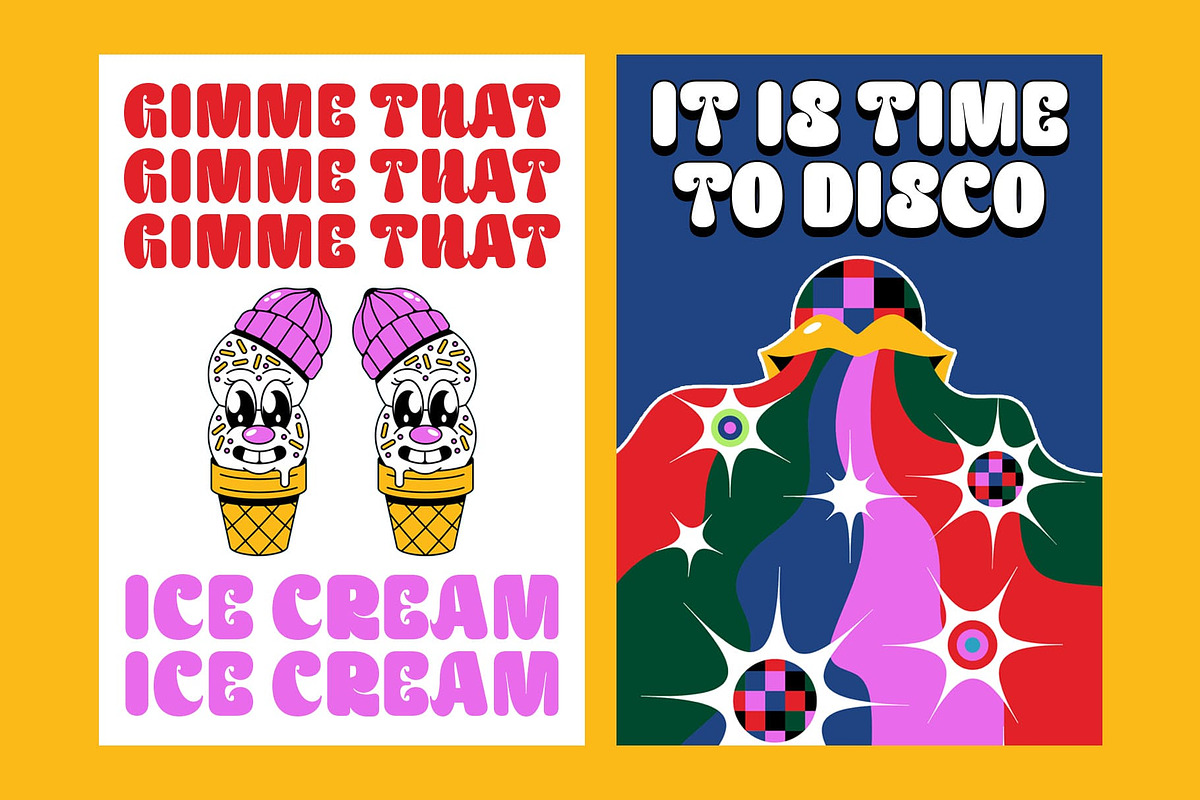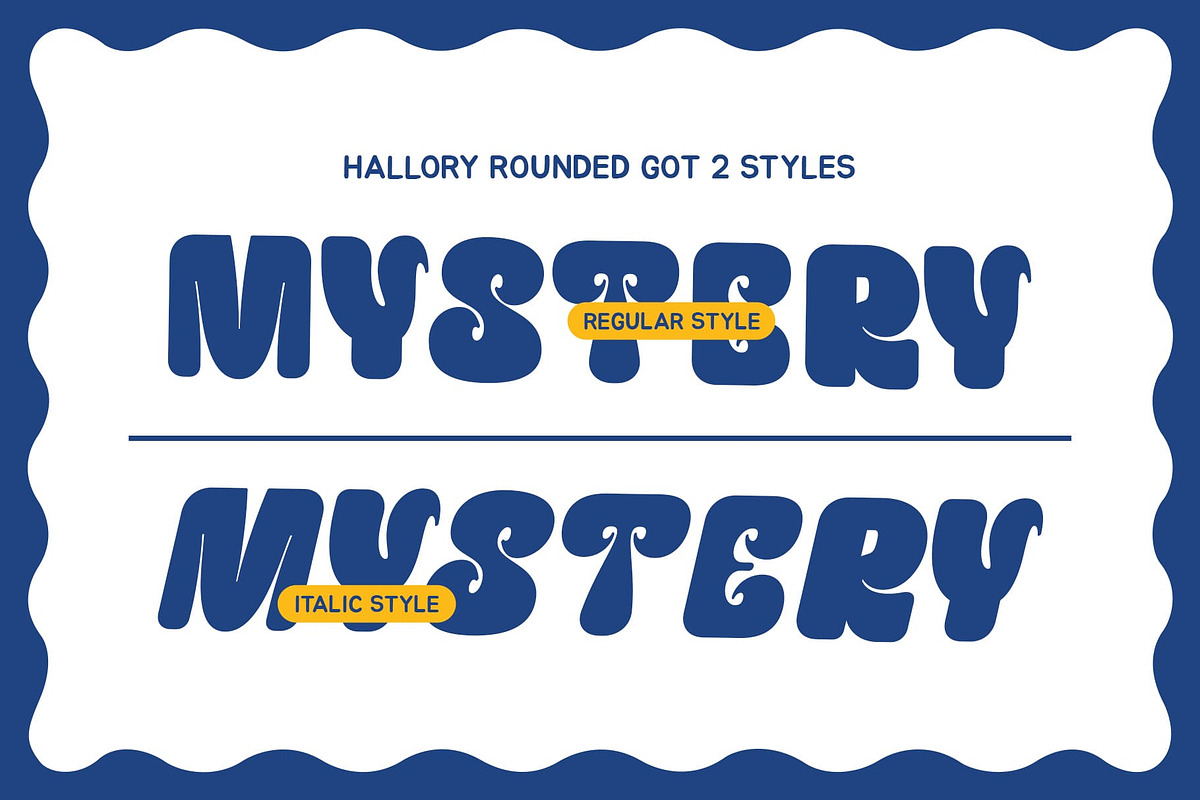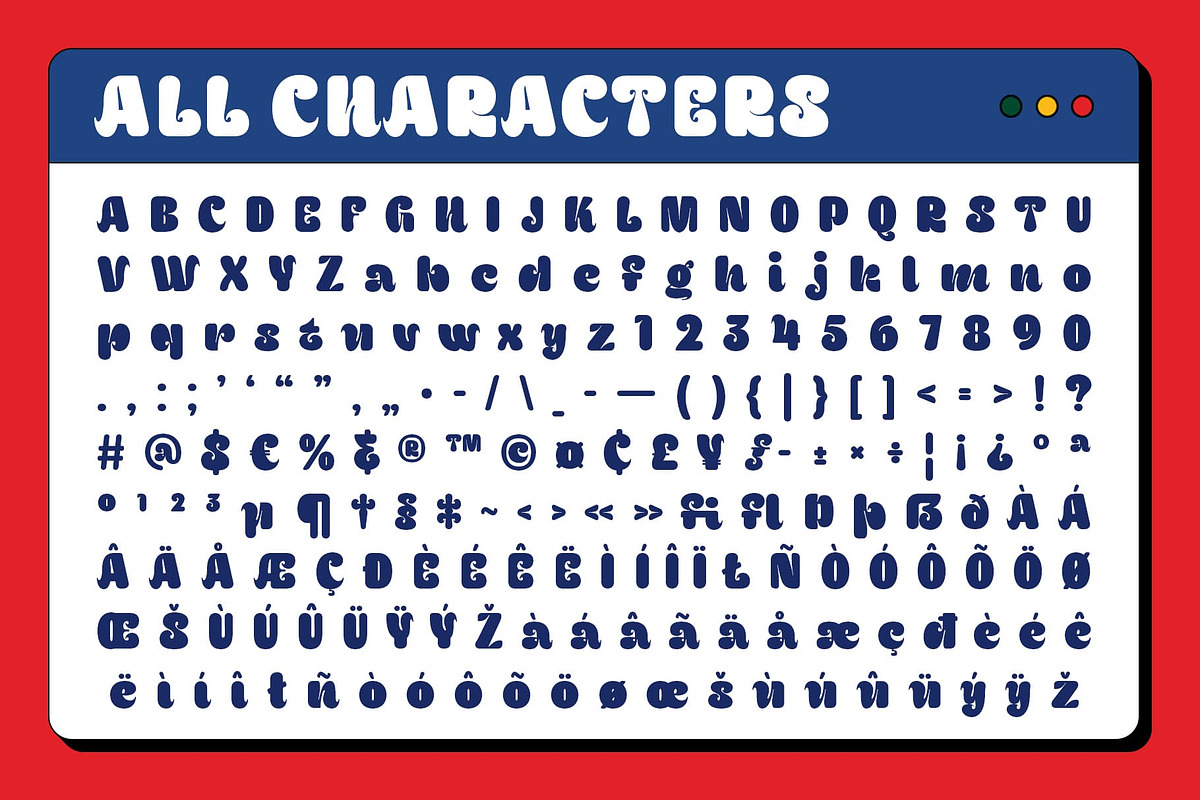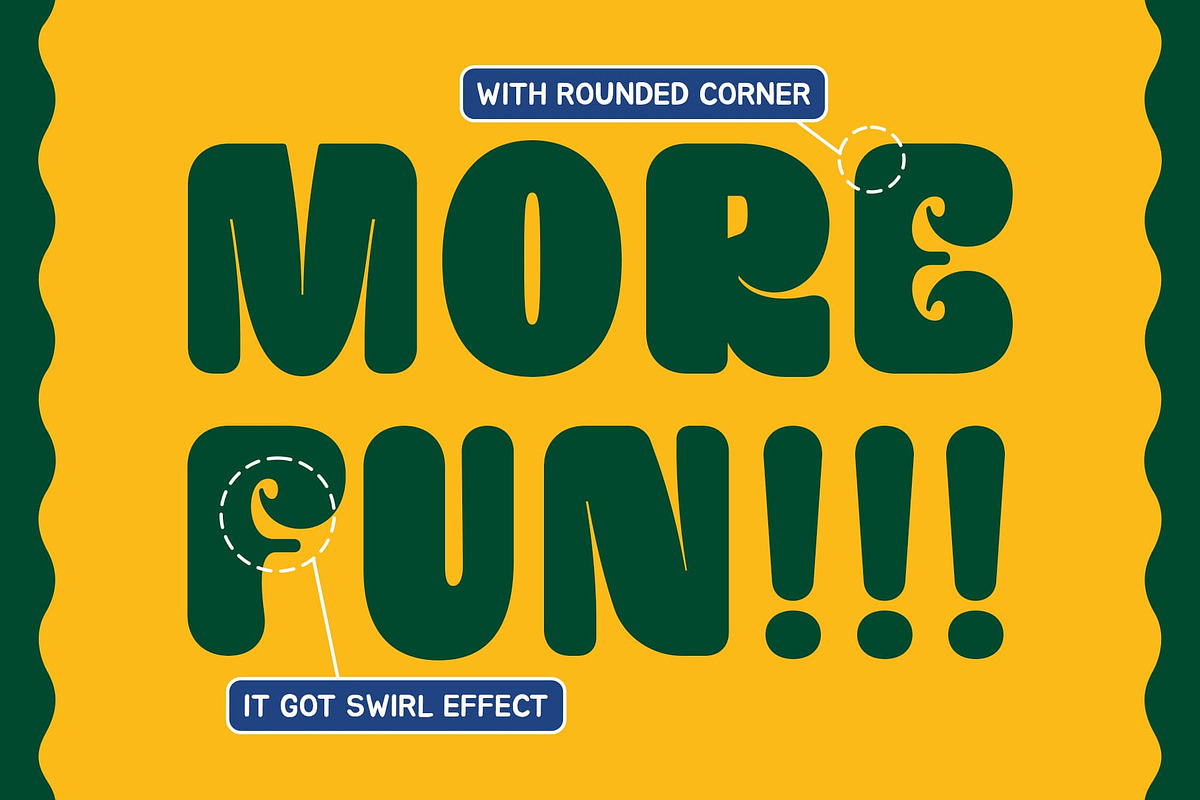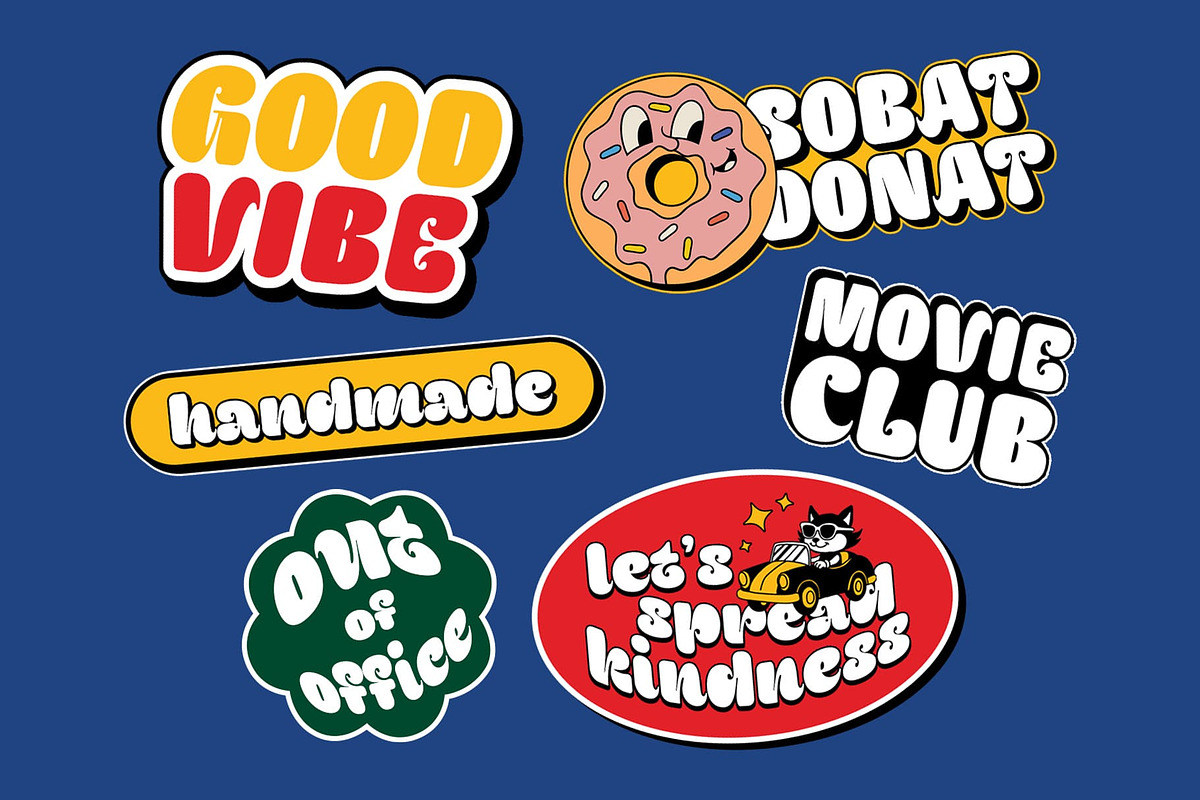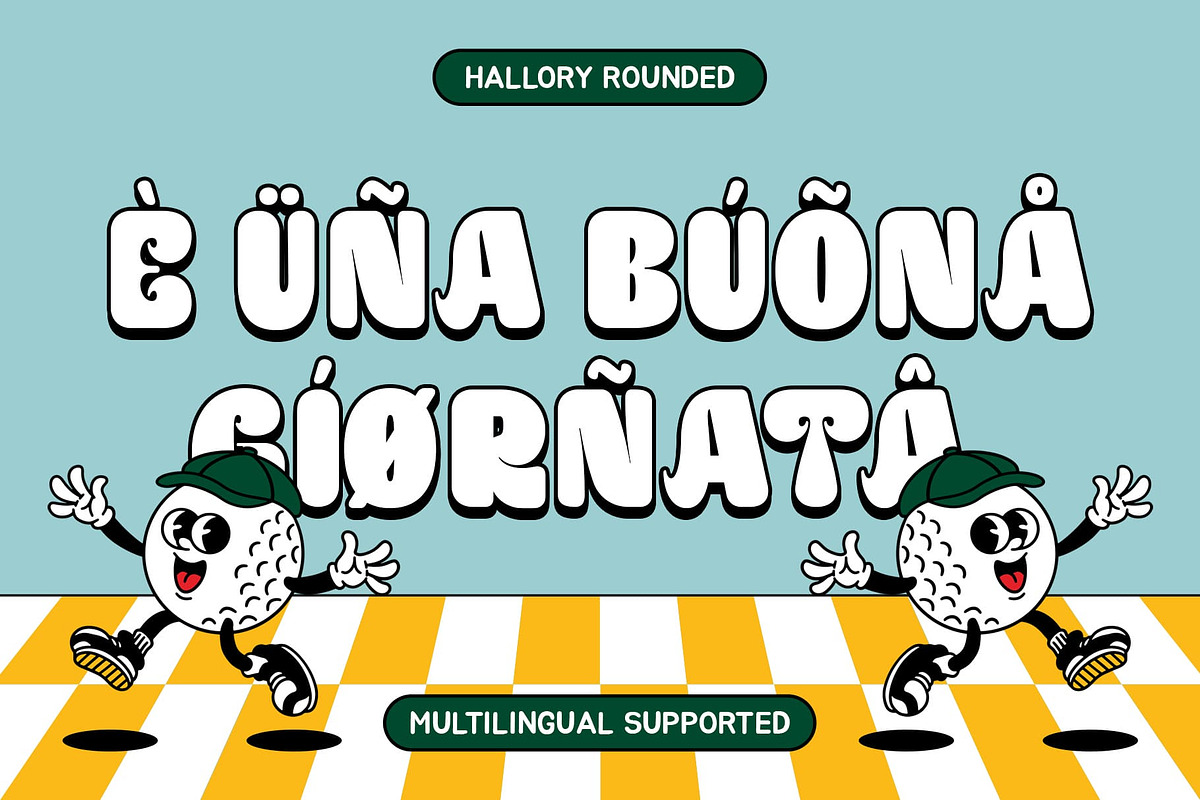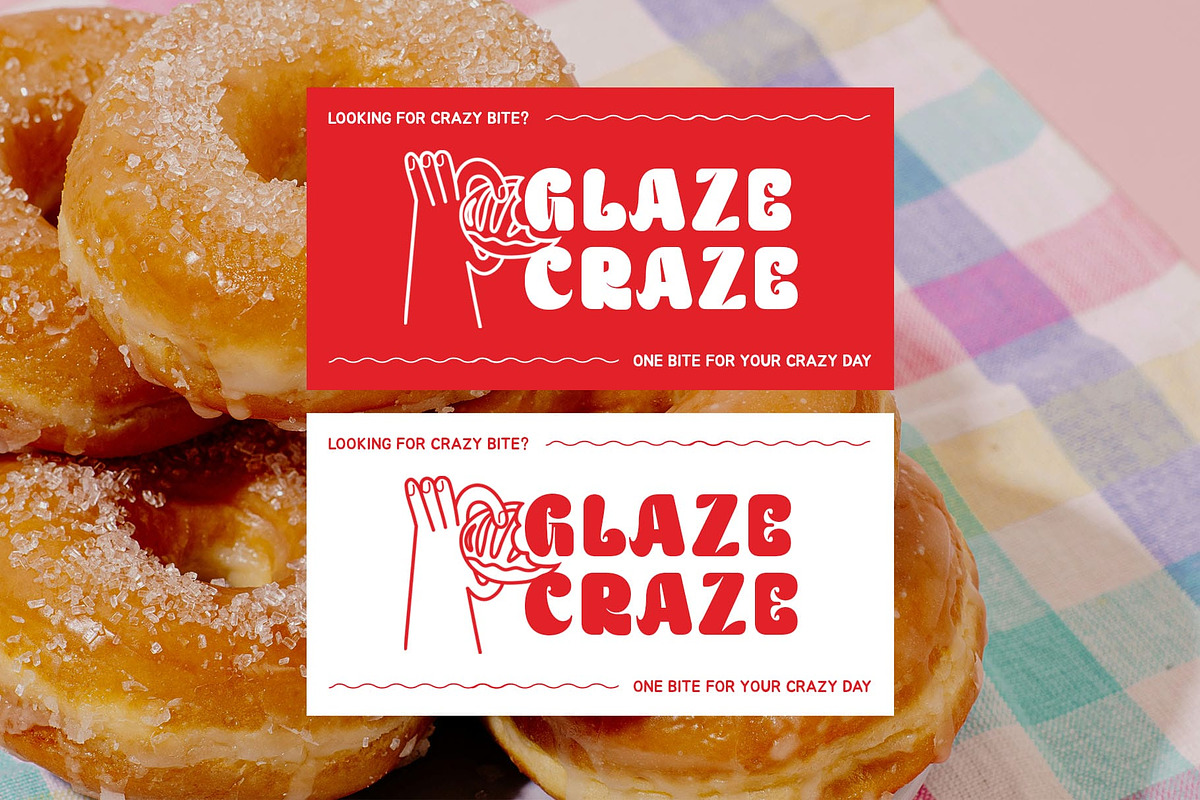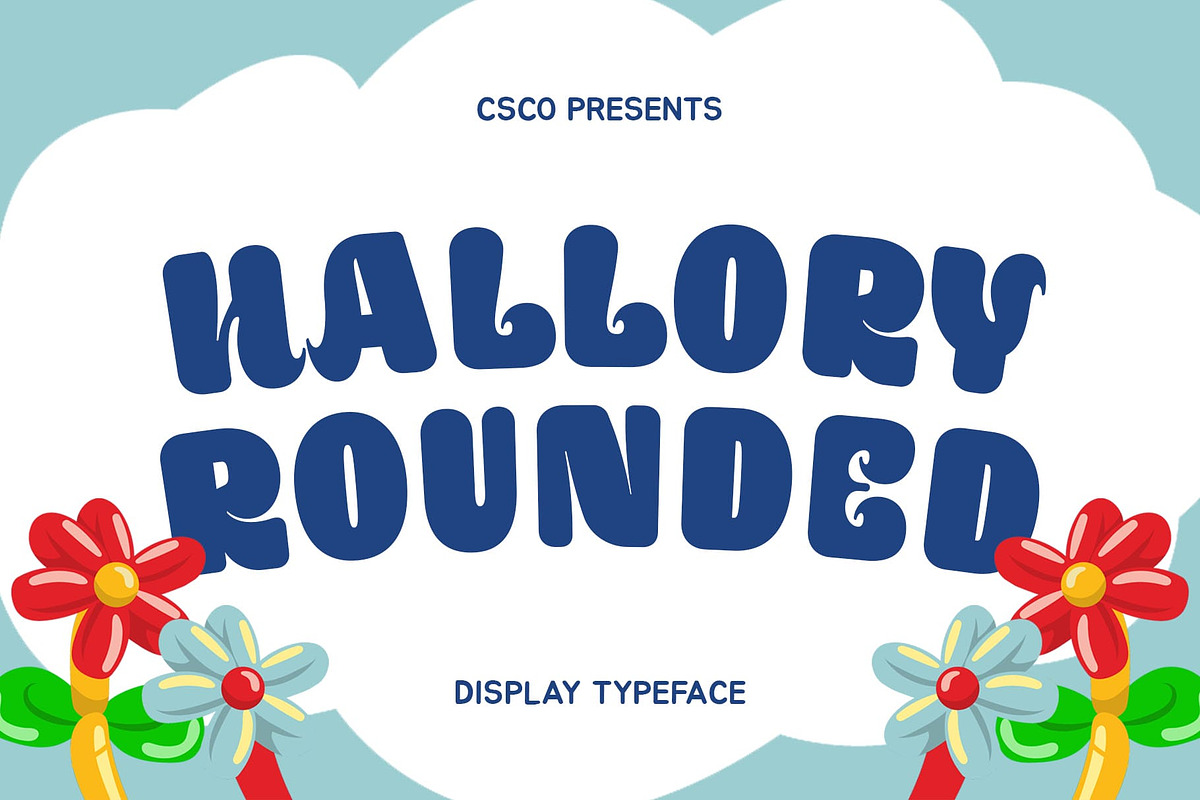
Hallory Rounded
Hallory Rounded – A Playful and Bold Display Font
A Modern Font with a Soft, Rounded Style Hallory Rounded is a bold display font with a smooth, rounded shape, designed to bring a friendly and inviting feel to any design. With its soft curves and full letterforms, this font creates a charming and approachable aesthetic, making it ideal for projects that require a lighthearted and engaging visual presence.
A Cute and Funky Character for Playful Designs With its fun and quirky personality, Hallory Rounded exudes a cute, funky, and unique vibe. The font’s bubbly and cheerful form enhances its youthful and energetic feel, making it perfect for brands and creatives looking to infuse a sense of joy and positivity into their work.
Perfect for Branding, Packaging, and Social Media Hallory Rounded shines in cheerful branding, product packaging, and eye-catching social media designs. Its bold yet soft appearance makes it ideal for playful logos, vibrant advertisements, and engaging digital content. Whether used for merchandise, posters, or website graphics, this font guarantees a warm and inviting impression.
Versatile for Creative and Eye-Catching Projects This font is a fantastic choice for logos, children’s books, product labels, and digital content that require a modern yet whimsical touch. Hallory Rounded balances boldness and softness, making it an excellent fit for various creative projects, from fun editorial layouts to stylish event promotions.